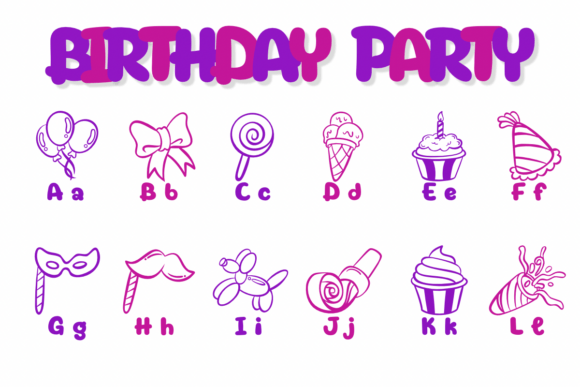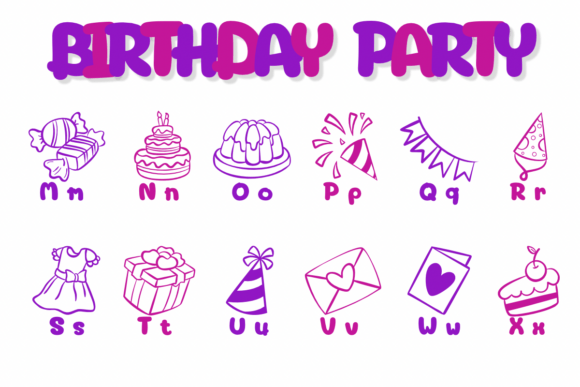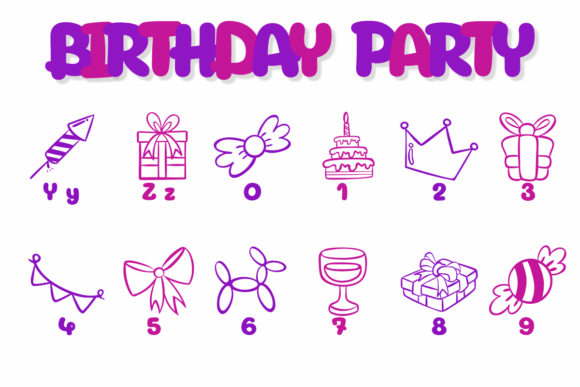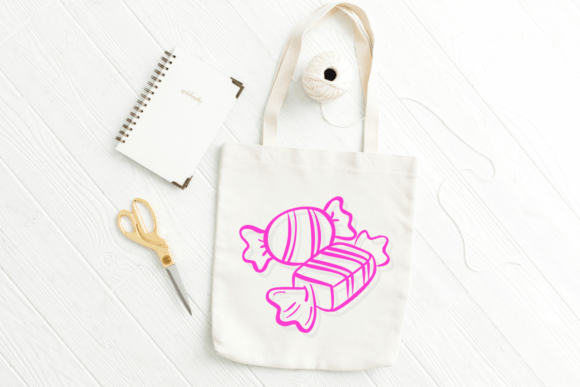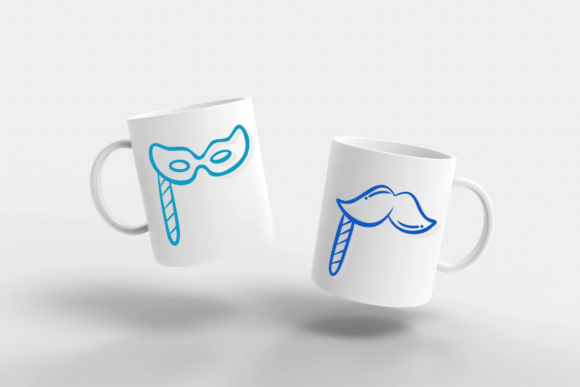
Introducing Birthday Party Font: The Ultimate Festive Dingbats Font
Are you looking for a font that can add a touch of festivity and fun to your creative projects? Look no further than the Birthday Party font! This delightful dingbats font is perfect for designers, crafters, and DIY enthusiasts who want to create unique and eye-catching designs for various occasions.
What is Birthday Party Font?
Birthday Party font is a dingbats font that features a festive theme, complete with party hats, balloons, cakes, and other celebratory icons. This font is designed to bring a playful and joyful vibe to your creative projects, making it perfect for birthday parties, weddings, baby showers, and other special events.
Uses of Birthday Party Font
The Birthday Party font is incredibly versatile and can be used for a wide range of creative projects, including:
- Wedding Invitations: Add a touch of whimsy and romance to your wedding invitations with the Birthday Party font.
- DIY Crafts: Use the font to create custom DIY crafts, such as party decorations, gift tags, and cards.
- Decorations: Create custom banners, garlands, and other decorations for parties and special events.
- Logos: Use the font to create fun and playful logos for businesses, events, or products.
- Social Media Graphics: Add a festive touch to your social media graphics, such as Facebook posts, Instagram stories, and Twitter headers.
Benefits of Using Birthday Party Font
Using the Birthday Party font can bring numerous benefits to your creative projects, including:
- Unique and Eye-Catching Designs: The font’s festive theme and playful icons can help you create unique and eye-catching designs that stand out from the crowd.
- Time-Saving: The font’s dingbats design allows you to easily create custom designs without having to spend hours searching for and inserting individual icons.
- Customization: The font can be customized to fit your specific needs, allowing you to adjust the size, color, and style to match your brand or design.
Tips for Using Birthday Party Font
Here are some tips for using the Birthday Party font effectively in your creative projects:
- Mix and Match: Combine the font with other fonts and design elements to create a unique and visually appealing design.
- Experiment with Colors: Try out different colors and color combinations to find the perfect match for your design.
- Keep it Simple: Don’t overdo it – use the font sparingly to avoid overwhelming your design.
The Birthday Party font is a fun and festive dingbats font that can add a touch of celebration and joy to your creative projects. With its versatility, customization options, and ease of use, this font is perfect for designers, crafters, and DIY enthusiasts who want to create unique and eye-catching designs for various occasions. So why wait? Download the Birthday Party font today and start creating your own festive designs!